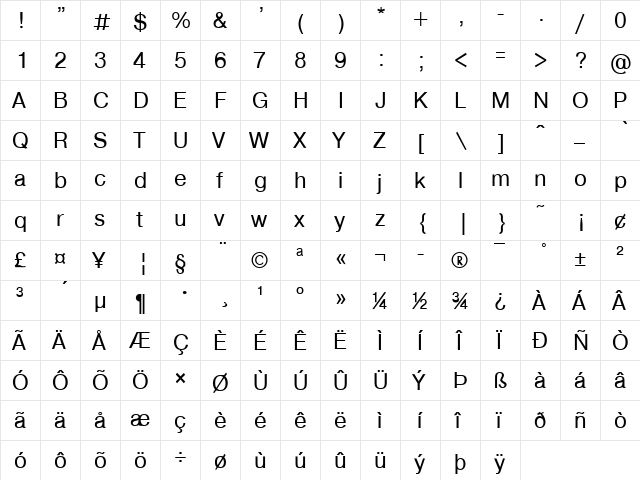
Hernot Becker Normal
Design Context for Hernot Becker Typeface
Hernot Becker takes a measured approach to typography — its balanced proportions and neutral character make it a reliable workhorse for both digital and print work.